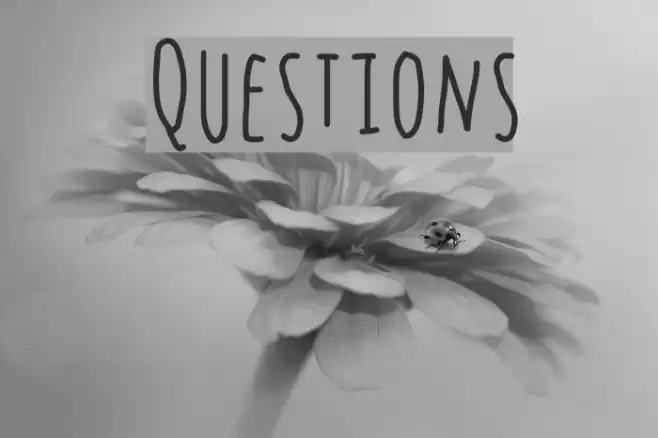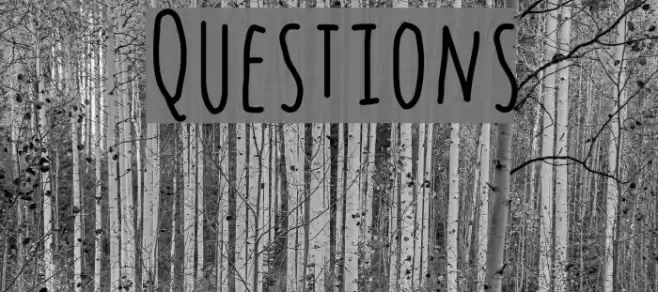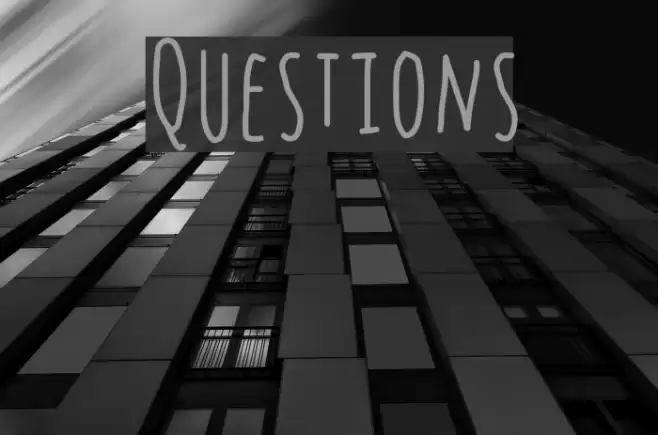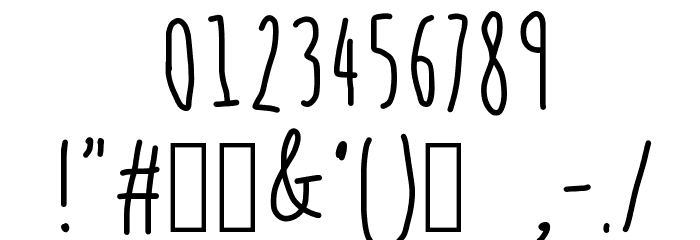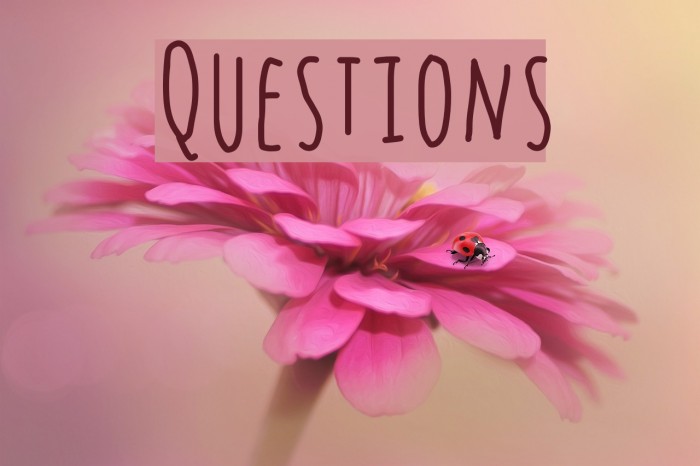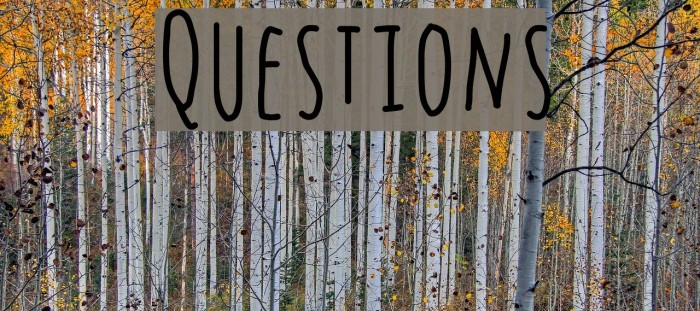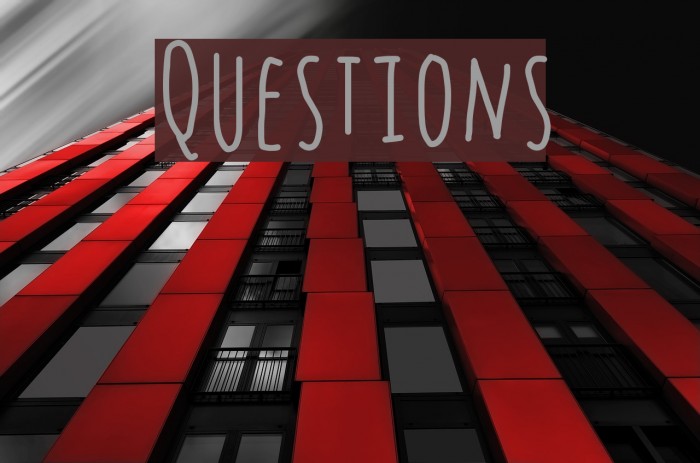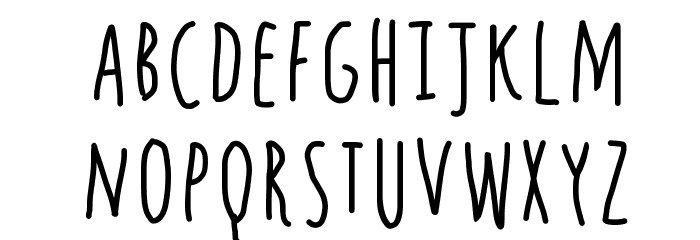
Questions Font
Questions Description
This font features a playful and casual handwritten style, characterized by its tall and narrow letterforms. The strokes are slightly uneven, giving it a natural and organic feel. The uppercase and lowercase letters maintain a consistent height, while the numerals are slightly taller, adding to the whimsical appearance. The special characters are designed to match the overall style, with a quirky and informal touch. This font is perfect for projects that require a personal and approachable aesthetic.
A playful, handwritten font with tall, narrow letters and a casual style from Uncategorized fonts.
- Proposed Projects: Ideal for greeting cards, children's books, personal blogs, and informal branding.
- Overall Style: Casual, Playful
- Use Case: Headlines, Informal text, Creative projects